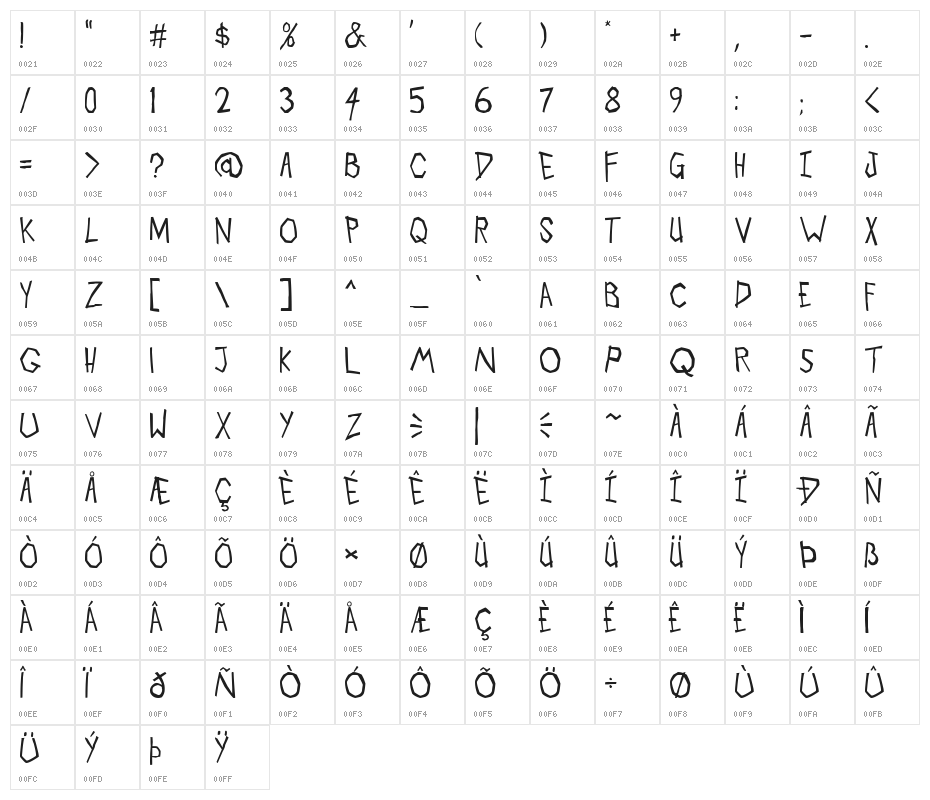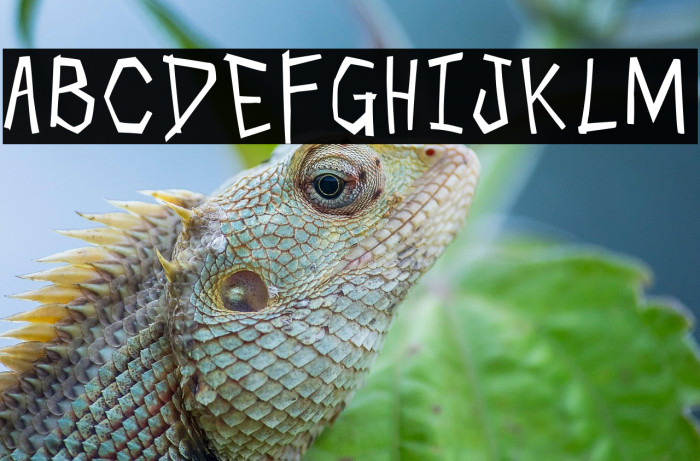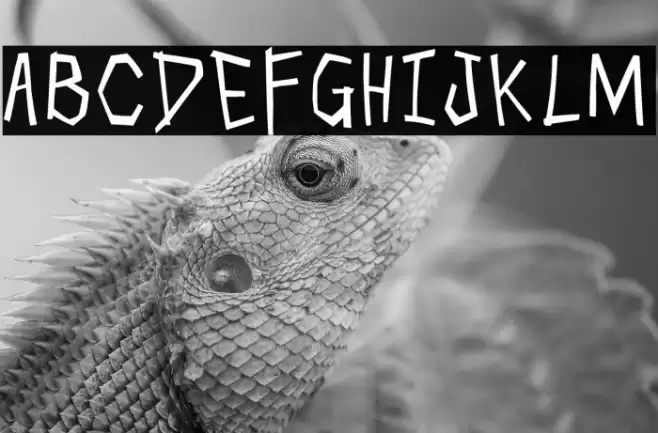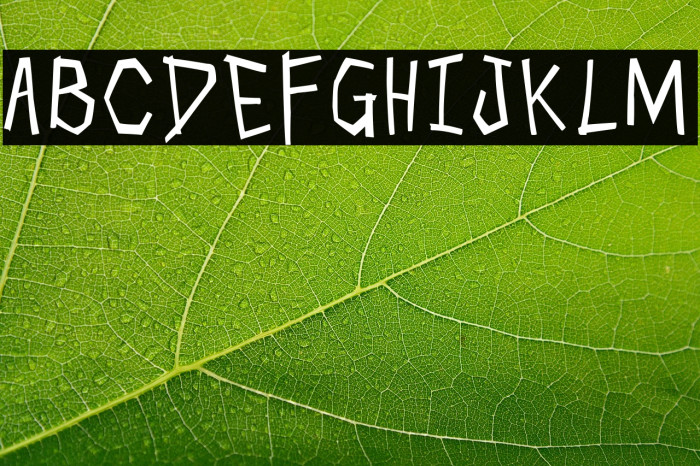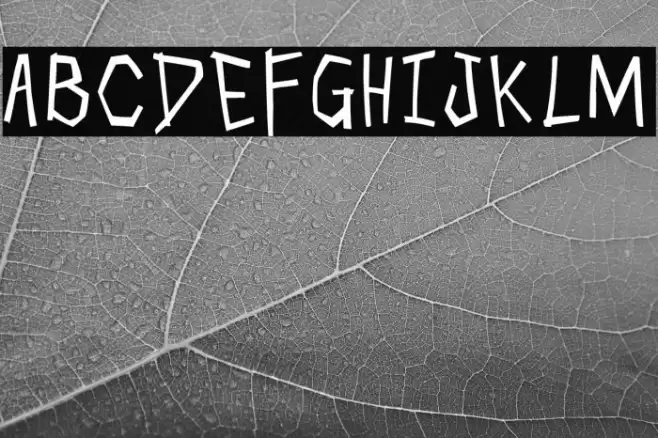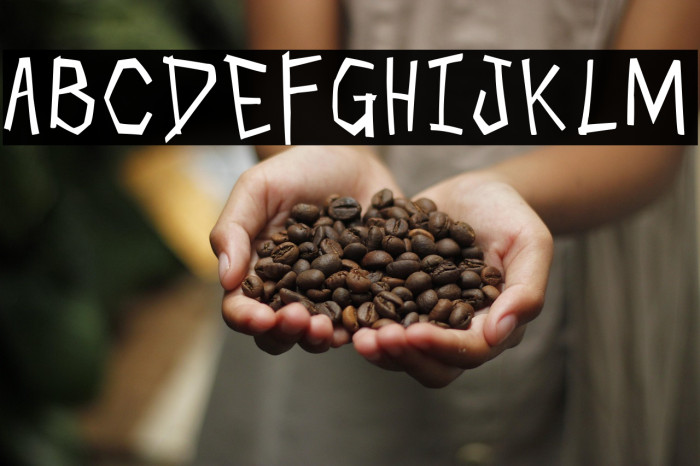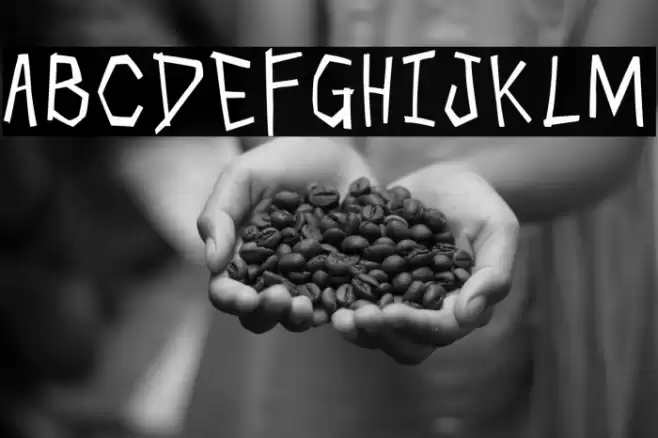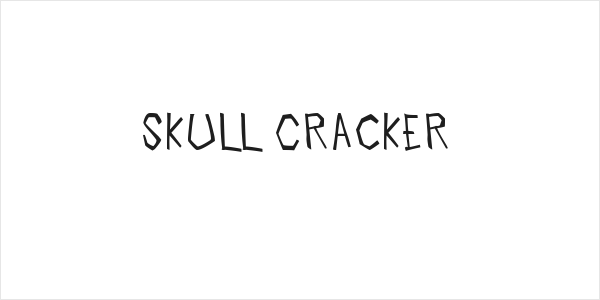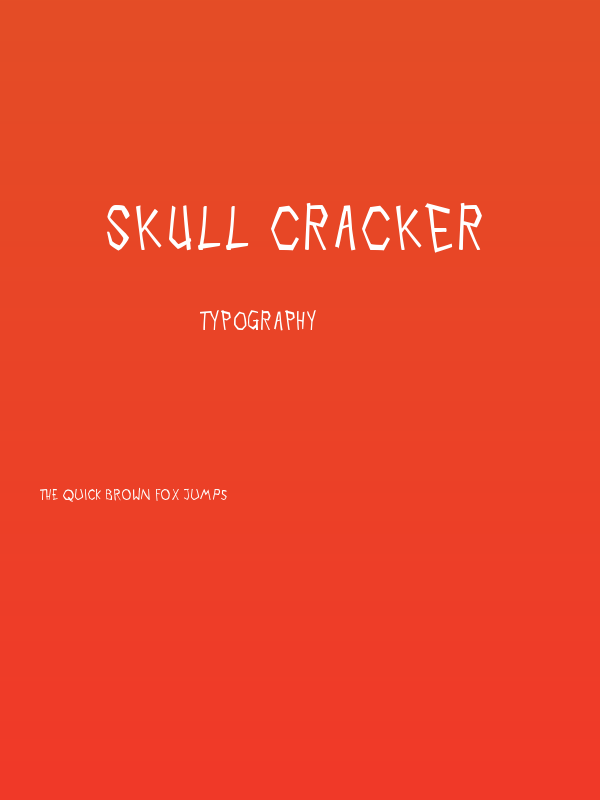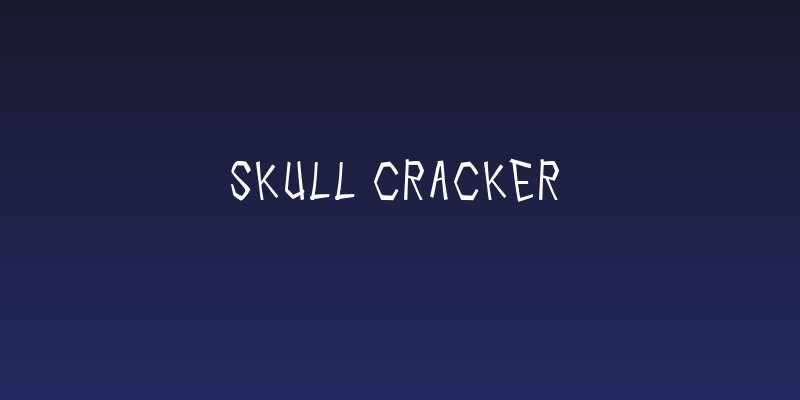
Skull Cracker Font
Skull Cracker Description
This font features a rugged, hand-drawn style with uneven, angular lines that give it a raw and edgy appearance. The characters are bold and slightly irregular, creating a sense of movement and energy. The uppercase and lowercase letters maintain a consistent style, with a playful yet rebellious aesthetic. The numbers and special characters follow the same design principles, ensuring a cohesive look across all glyphs. This font exudes a sense of individuality and nonconformity, making it ideal for projects that require a bold statement.
| Proposed Projects | Ideal for album covers, posters, graffiti art, and any project requiring a bold, edgy statement. |